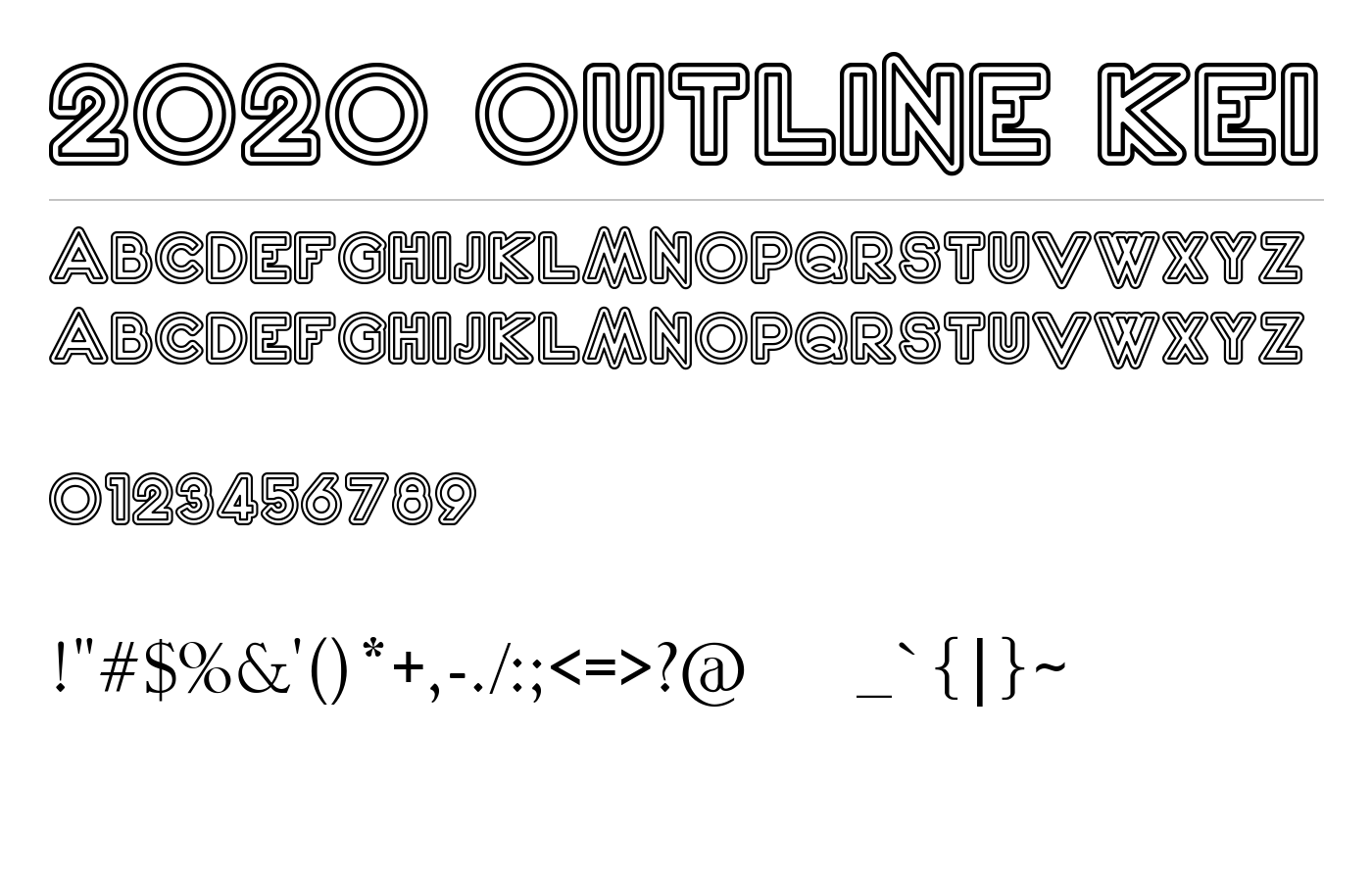
2020 Outline Kei is a playful sans serif font featuring a bold, outlined style that gives each letter a modern, geometric feel with a layered, double-line effect. Its uppercase-only design, uniform stroke width, and high x-height create a clean, eye-catching look perfect for distinctive headlines, logos, and creative branding that seeks a fun and contemporary vibe. This font stands out best in display use where its unique outline adds visual interest without sacrificing readability.
2020 Outline Kei Font